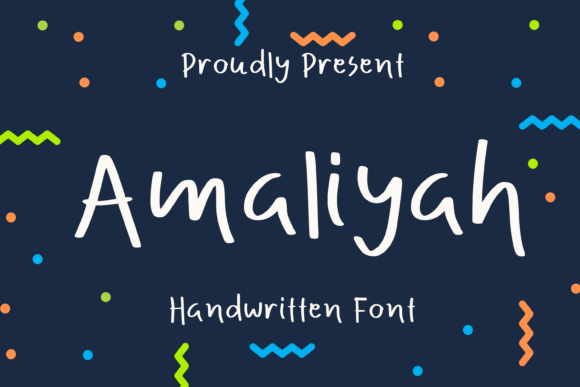
Introduction to Amaliyah Font
Amaliyah is a smooth and friendly handwritten font.
Its casual and joyful style makes it appear wonderfully down to earth, readable and, ultimately, incredibly versatile Get creative with this stunning font.